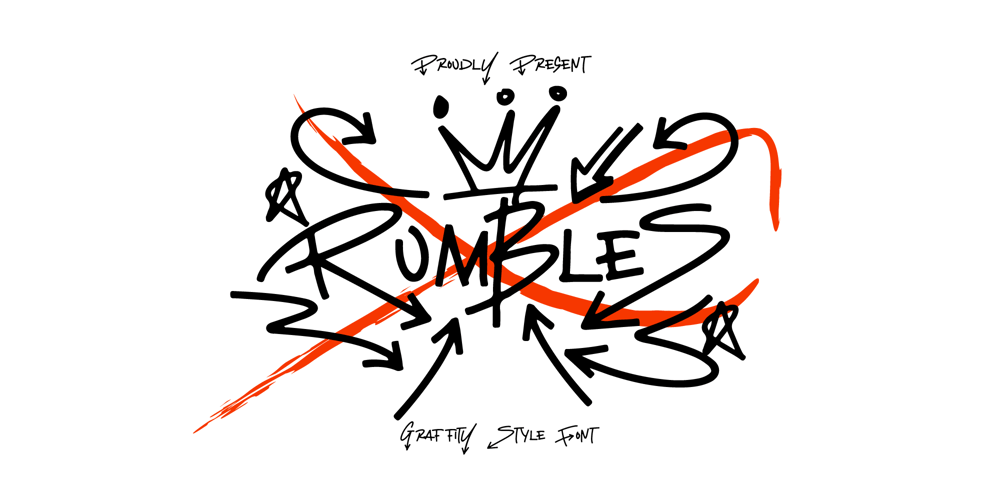
Rumbles
Rumbles font
Rumbles Font Family was designed by ryan creative and published by ryan creative. Rumbles contains 1 styles and family package options. Hello creators Introducing Rumbles inspired by the graffiti style with thin lines that have a unique appearance with additional variations in Alternates. accompanied by additional ornaments that you can adjust to your own style. can be applied such as, Design, image style, etc.FEATURES; Supports Foreign Languages, Numbers, and Punctuation. Alternates,and ornaments Works on PC. Simple installation. Accessible in Adobe Illustrator, Adobe Photoshop. Adobe InDesign, can even be used in Microsoft Word. Fully accessible without additional design software. Rumbles is encoded with Unicode PUA, which allows full access to all additional characters without having to design any special software. Mac users can use the Font book, and Windows users can use the Character map to view and copy any additional characters to paste into your favorite text editor/application. Thank you for visiting 😉